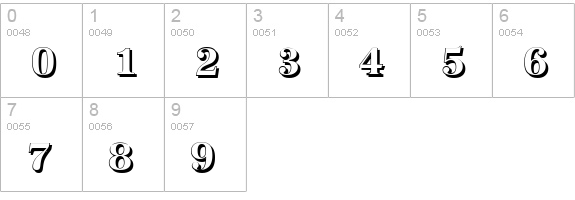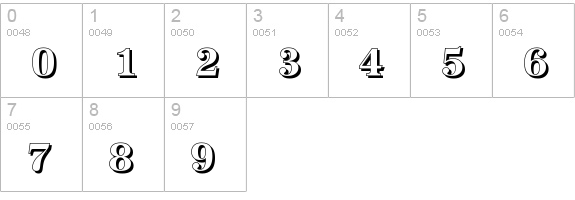
AntiquaSh-Bold is a strong, high-contrast variant in the AntiquaSh typeface family \xE2\x80\x94 well suited to headlines, attention-grabbing titles, and strong calls-to-action.
AntiquaSh-Bold is a classic and elegant font that exudes sophistication and timelessness. With its bold weight and intricate detailing, this typeface is perfect for creating eye-catching headlines, titles, and logos that demand attention. Its refined serifs and clean lines add a touch of sophistication to any design project, making it a versatile choice for both print and digital applications. What sets AntiquaSh-Bold apart is not only its timeless design, but also the fact that it is available for free download at FontsMarket.com. This means that you can easily access and use this high-quality font in your projects without any cost, making it a valuable resource for designers, students, and enthusiasts alike. Whether you are working on a branding project, editorial layout, or web design, AntiquaSh-Bold offers a professional and polished look that will elevate your work to the next level. Download this exceptional font today and enhance your designs with its classic charm and modern appeal.